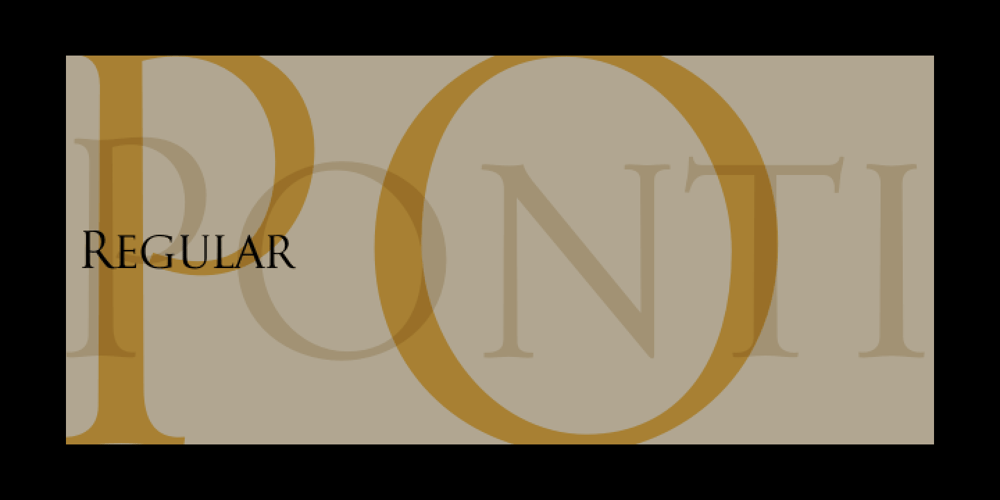
Pietra LP Font Family was designed by Garrett Boge and published by LetterPerfect. Pietra LP contains 1 styles and family package options. Pietra is a Baroque-inspired, all-majuscule type design, based on the massive five-foot tall mosaic lettering high above the floor in St. Peters in Rome. The font includes two sets of capitals: full sized, proportioned on the actual lettering; and small capitals, scaled vertically to capture the foreshortened effect of viewing the lettering from the floor. It was designed by Garrett Boge in 1996. Pietra is part of the LetterPerfect Baroque Set.